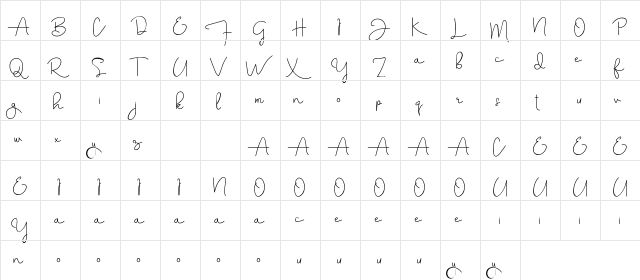
Aghnestademo Regular
Design Context for Aghnestademo Typeface
Aghnestademo is a composed and adaptable typeface that performs quietly and consistently across a wide range of design contexts.